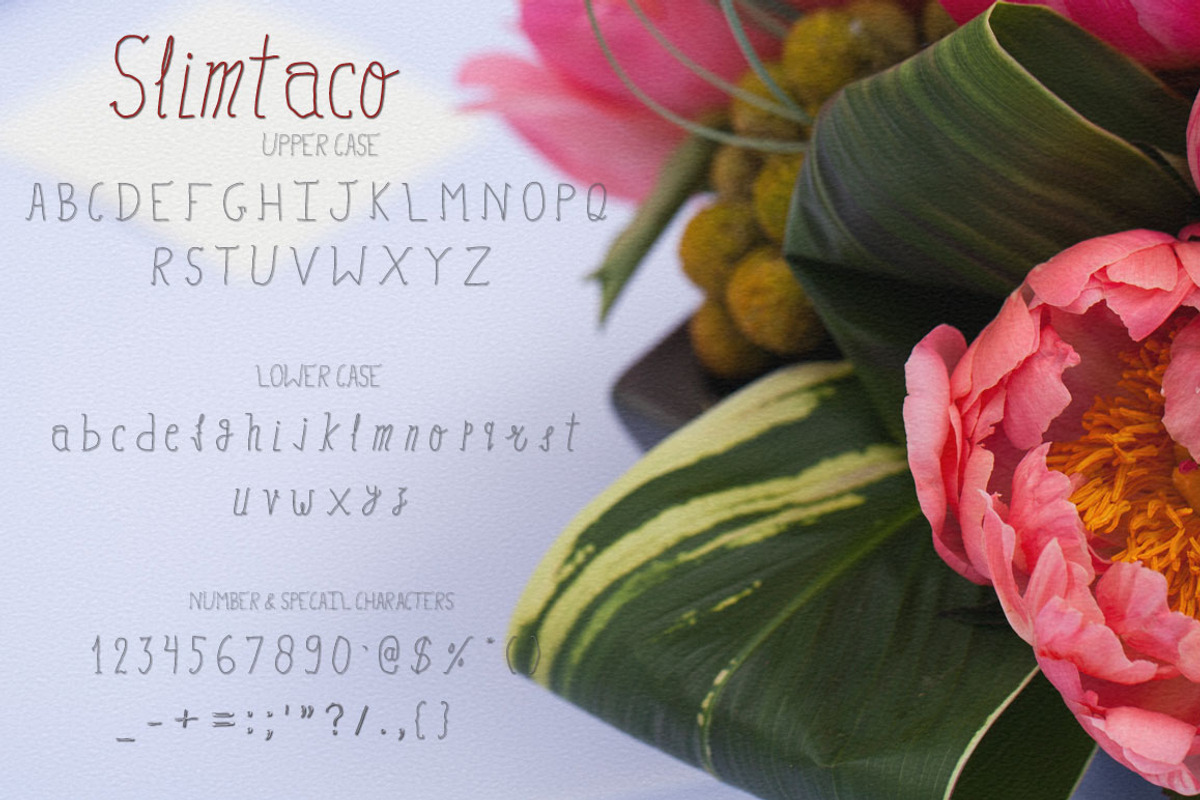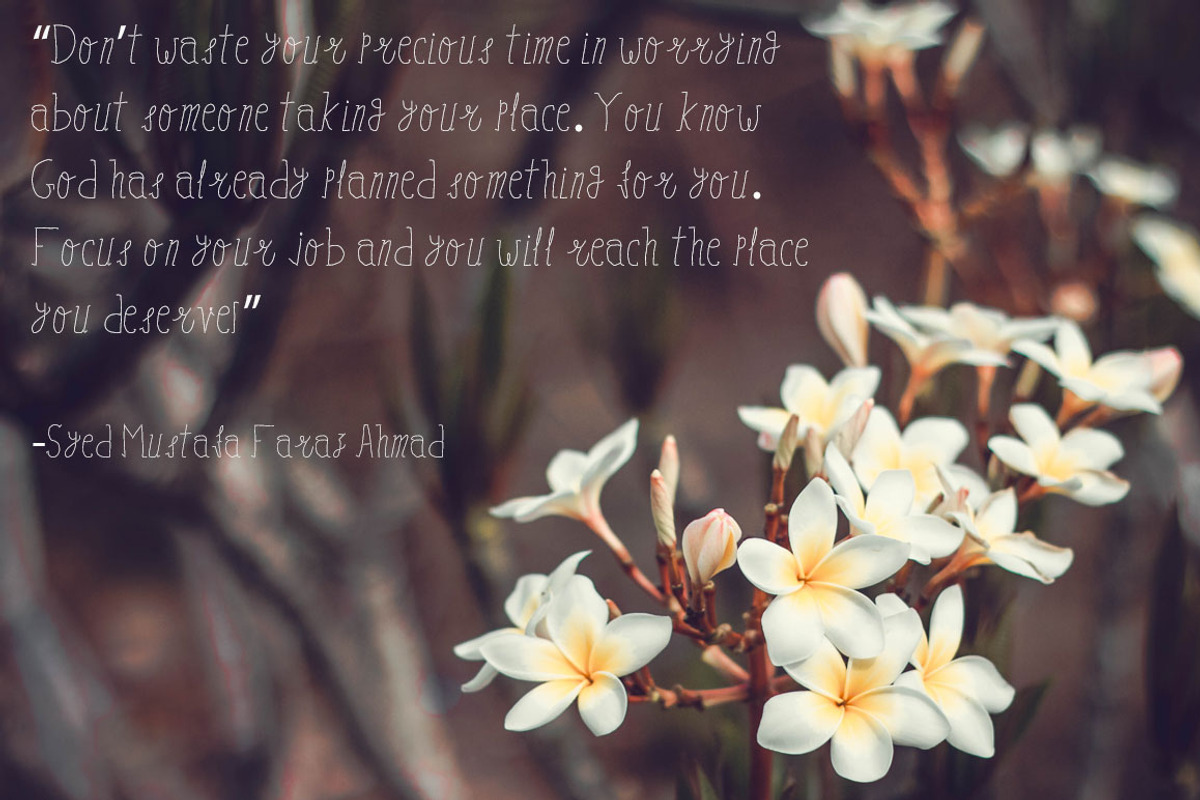
Slimtaco Font
Slimtaco Font by Creativetacos is a font selected for branding, posters, packaging, typography.
- Includes Capital Letters, Small Letters Numbers & Punctuation Show More
- Lowercase letters serve as alternates to create some variation in your words.
Slimtaco Font by Creativetacos fits naturally into Branding, posters, packaging, typography.